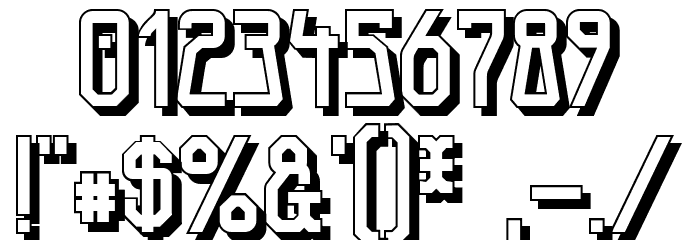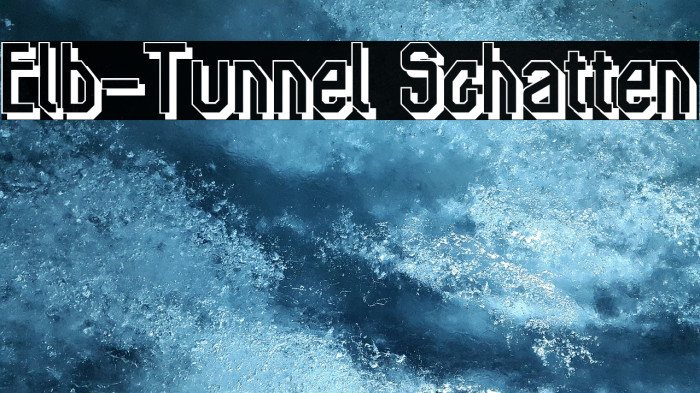
Elb-Tunnel Schatten Font
This font features a bold, three-dimensional appearance with a shadow effect that gives it a striking and impactful look. The characters are uppercase and lowercase letters, numbers, and a variety of special symbols. Each character is outlined with a thick black border, enhancing the shadow effect and creating a sense of depth. The font has a geometric and angular style, with sharp edges and clean lines, making it suitable for attention-grabbing designs. The overall aesthetic is modern and dynamic, ideal for projects that require a bold statement.
A bold, three-dimensional font with a shadow effect and geometric style.
- Proposed Projects: Ideal for posters, headlines, logos, and any design needing a bold, impactful look.